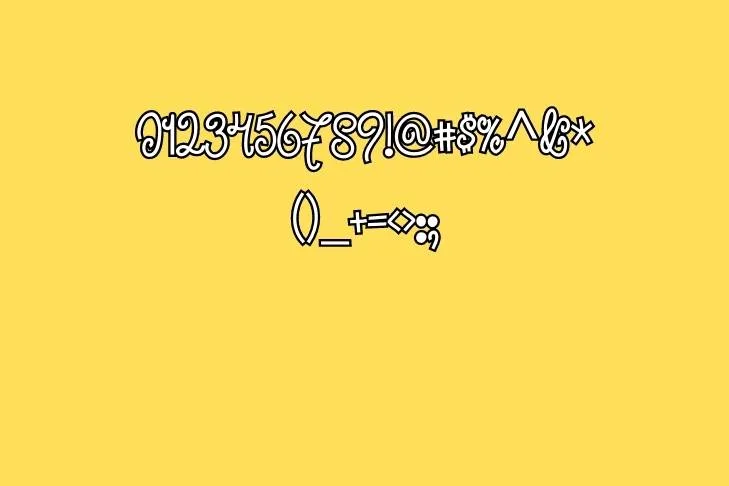
A semi-cursive elegant typeface called Jandles Font looks absolutely stunning when printed on items. Its jiggly and rough appearance makes it wonderful for any special creative work.
There is only one regular style in the Truetype format of this exquisite font. It truly is an appreciated typeface from all over the world due to its support for many languages and sharp characteristics.
The 148 glyphs available in this outstanding font include upper case, lower case, numbers punctuation marks, and several unique symbols. It also supports multilingual characters and is equipped with an online generator tool.
The responsibility for creating and publishing it for the first time passed to Mr Ray Larabie, a Japanese type designer from Typodermic Fonts. He has produced several attractive, innovative typefaces.
One of those is the Kenyan Coffee font. In June 2010, Mr Ray Larabie made it available through his type foundry, Typodermic Fonts. On June 23, 2014, Jandles typeface had an additional boost containing some new glyphs and user-friendly structures.
Creative Ways to Use Jandles Font
Its diverse texture fascinates viewers. Most suitable for usage in written material for children, including kindergarten books, fancy brochures, and more. It will enable you to produce some incredible creations. It is also a good idea to use it on contemporary cards, beauty product printing, fabric printing, and other textual layouts.
I can tell you that your expected projects will work nicely with this quirky typeface. So, if you genuinely believe it to be a valuable typeface, use it to design your future works and give them an impressive appearance.
Jandles Font Pairings
Jandles typeface forms an amazing combination with the following typefaces. These pairings result in an awe-inspiring outlook for your projects.
- Jandles and Dubiel font: These two fonts when combined together form an awe-inspiring project.
- Cotrell CF and Jandles texture: Cotrell CF and Jandles typefaces complement each other as they both can be used together for branding purposes.
- Jandles and Raleway font: Raleway font’s mesmerizing typography can be employed for headings and Jandles typeface can be utilized for body content purposes
What type of font is Jandles Font?
Jandles Font is a fancy typeface design that has very attractive glyphs. Its jiggly and rough appearance makes it wonderful for any special creative work.
Is Jandles a good font for PowerPoint?
This typeface style is a great choice for many projects, we do not recommend using it for PowerPoint presentations.
Is Jandles font Professional?
This font style is a highly readable typeface, which makes it a popular choice for books and magazines.